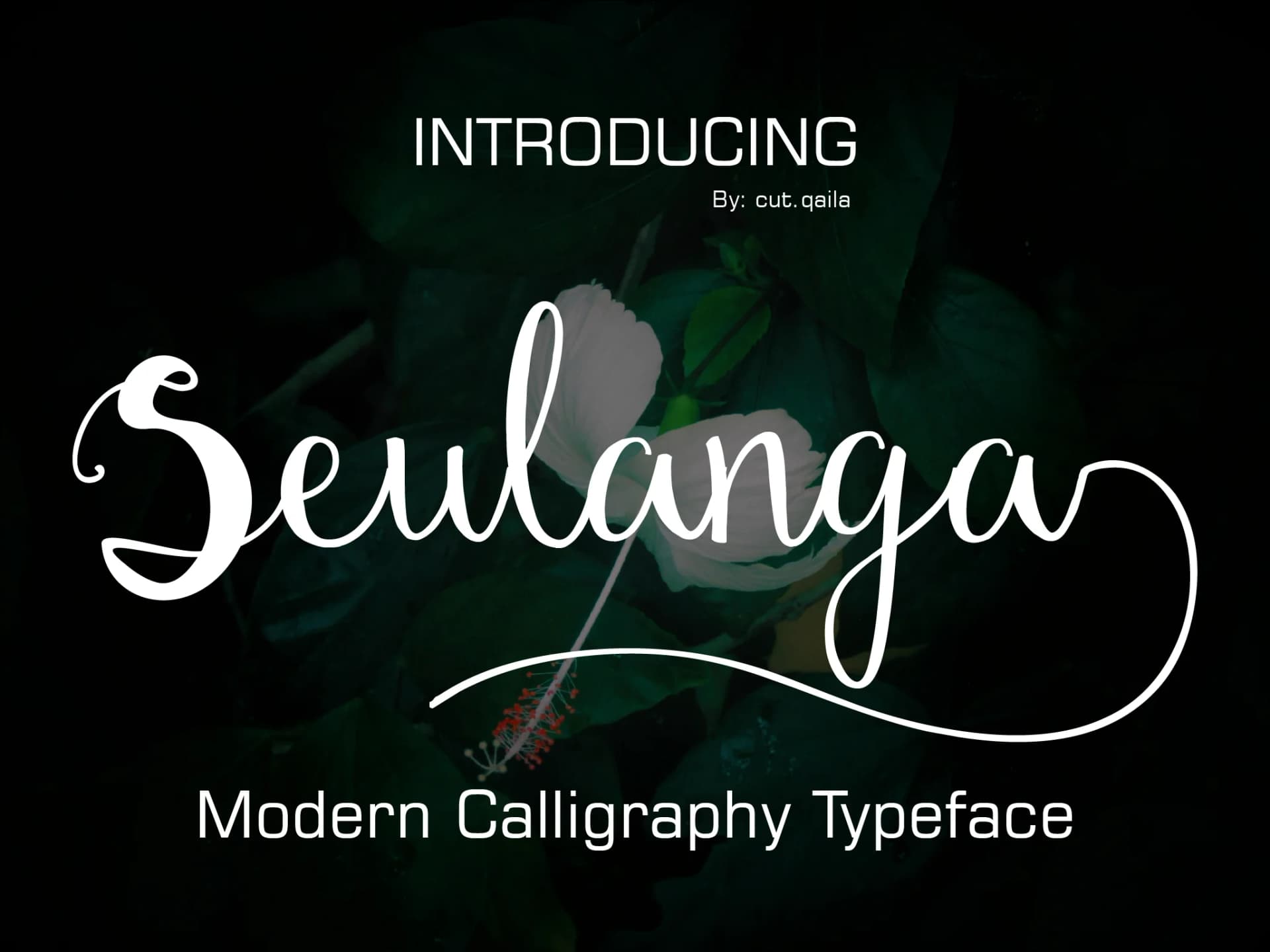
Seulanga Font by ed.creative is a flowing hand-lettered script designed to bring authentic warmth and personality to creative work. The typeface captures genuine handwriting through organic letterforms and natural stroke variations that feel personal rather than mechanical or generic. This is a script that rewards careful placement and thoughtful pairing with complementary typefaces. Wedding invitation suites are a natural application for Seulanga, where its graceful flow sets an elegant tone for special occasions. Personalized stationery and greeting card designs gain handwritten authenticity that feels intentional and thoughtfully crafted. Boutique beauty packaging, particularly indie skincare brands and artisanal cosmetics labels, benefits from the typeface's refined yet approachable character and warmth. Custom apparel and DIY market signage showcase Seulanga's distinctive forms beautifully, while event menus, restaurant branding, and hospitality materials establish personality and exclusivity through this script's natural, distinctive character. Seulanga pairs thoughtfully with both geometric sans-serif and delicate serif typefaces, making it an exceptionally flexible choice across brand systems and multi-page layouts. Whether developing a luxury brand identity, creating heirloom-quality materials, or designing boutique product packaging, this script brings refined character through thoughtful composition and genuine warmth. Get Seulanga Font on Creative Fabrica and add this elegant handwritten typeface to your design toolkit.
- Elegant, Flowing, Seulanga
Seulanga Font is a script font that shines as a display or heading face. Pair it with a clean sans-serif or serif font for body text β the contrast creates a clear hierarchy while the two styles stay balanced and easy to read.
Seulanga Font
by ed.creative